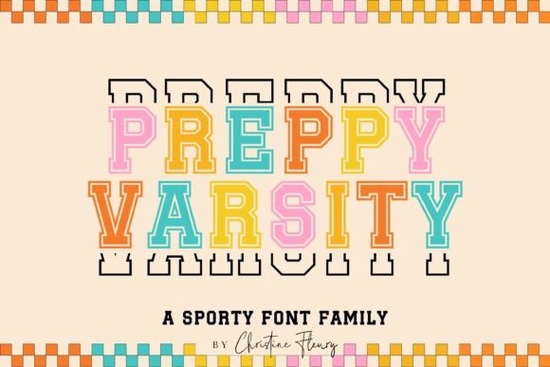
If you’ve been searching for a font that brings that classic college spirit to your designs, the Preppy Varsity Font might be exactly what you need. It’s got that retro sporty look think letterman jackets, pep rallies, and locker room signs but with enough flexibility to work on everything from mugs to logos. What makes it especially handy is that it comes in four different styles, so you can mix and match weights or textures without losing that cohesive varsity feel.
This isn’t just another display font you download and forget. It’s built for creators who actually make things whether you’re running a small print-on-demand shop, designing SVG files for crafters, or personalizing gifts for friends. The clean lines and bold presence hold up well in sublimation prints, vinyl cuts, and even embroidered patches. And because it’s optimized for both digital and physical outputs, you won’t run into scaling issues or pixelation when resizing.
What kinds of projects does this font work best for?
The short answer: almost anything with a casual, youthful, or athletic vibe. Here are some real-world uses people are already loving:
- T-shirts and hoodies especially for school teams, alumni merch, or fitness brands
- Mugs and tumblers pair it with motivational quotes or team slogans
- SVG files for Cricut or Silhouette layer it with script fonts like Retro Script for contrast
- Branding elements logos, packaging, or social media graphics for sports bars, gyms, or youth programs
- Seasonal ornaments and cards great for graduation gifts or back-to-school themes
One thing users appreciate is how well it plays with other fonts. Try combining it with something playful like Cute Stories for a fun contrast, or go bold with Soccer Football Jersey Font if you’re designing for actual sports teams. You don’t need to stick to one style the four variants in the Preppy Varsity family give you room to experiment while keeping everything visually connected.
Is this font beginner-friendly?
How does it compare to other “varsity” fonts out there?
There are dozens of sporty fonts floating around Creative Fabrica, but not all of them deliver clean outlines or multiple weights. Some are too thin for cutting machines, others too clunky for small-scale prints. The Preppy Varsity Font strikes a nice balance thick enough to stand out on fabric, but refined enough to look good on business cards or digital thumbnails.
And unlike many single-style fonts, having four variants means you can create depth without needing drop shadows or manual outlining. Want a retro badge? Use the inline version. Going for a bold headline? Switch to the shadow variant. It saves time and keeps your files lighter.
Any tips for getting the most out of this font?
Here’s what experienced sellers and crafters recommend:
- Test print first. Especially if you’re using heat transfer vinyl or sublimation check how the thinner strokes hold up at smaller sizes.
- Use sparingly in logos. It’s bold by nature, so pairing it with a simple sans-serif for taglines helps keep things readable.
- Layer variants for dimension. Try placing the shadow style behind the regular one with a slight offset instant 3D effect.
- Stick to uppercase. The design leans heavily on capital letters, so lowercase can look inconsistent.